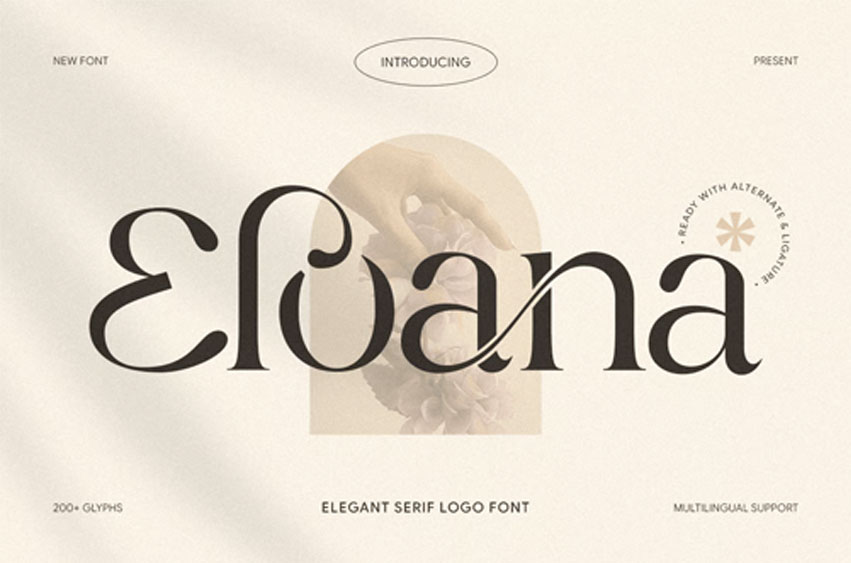
Eloana Font
Eloana Font Elegant Serif Logo Font Eloana is an elegant serif logo font designed to bring sophistication, refinement, and timeless beauty to your brand identity. With graceful serif details, balanced proportions, and smooth letterforms, Eloana is perfect for logos, fashion branding, editorials, invitations, packaging, and luxury visual designs.
Blending classic serif elegance with modern styling, Eloana delivers excellent readability while maintaining a classy and professional character. Its refined aesthetic makes it ideal for boutique brands, beauty products, jewelry labels, fashion houses, lifestyle businesses, and designers seeking a stylish serif logo font for premium branding.
Eloana – Elegant Serif Logo Font Features:
• Elegant serif style with refined letterforms
• Ideal for logos, branding, editorials, and packaging
• Balanced contrast with graceful serif details
• Perfect for classy, premium, and timeless design projects
Create a sophisticated brand presence with Eloana – the elegant serif logo font crafted for stylish visual identity.